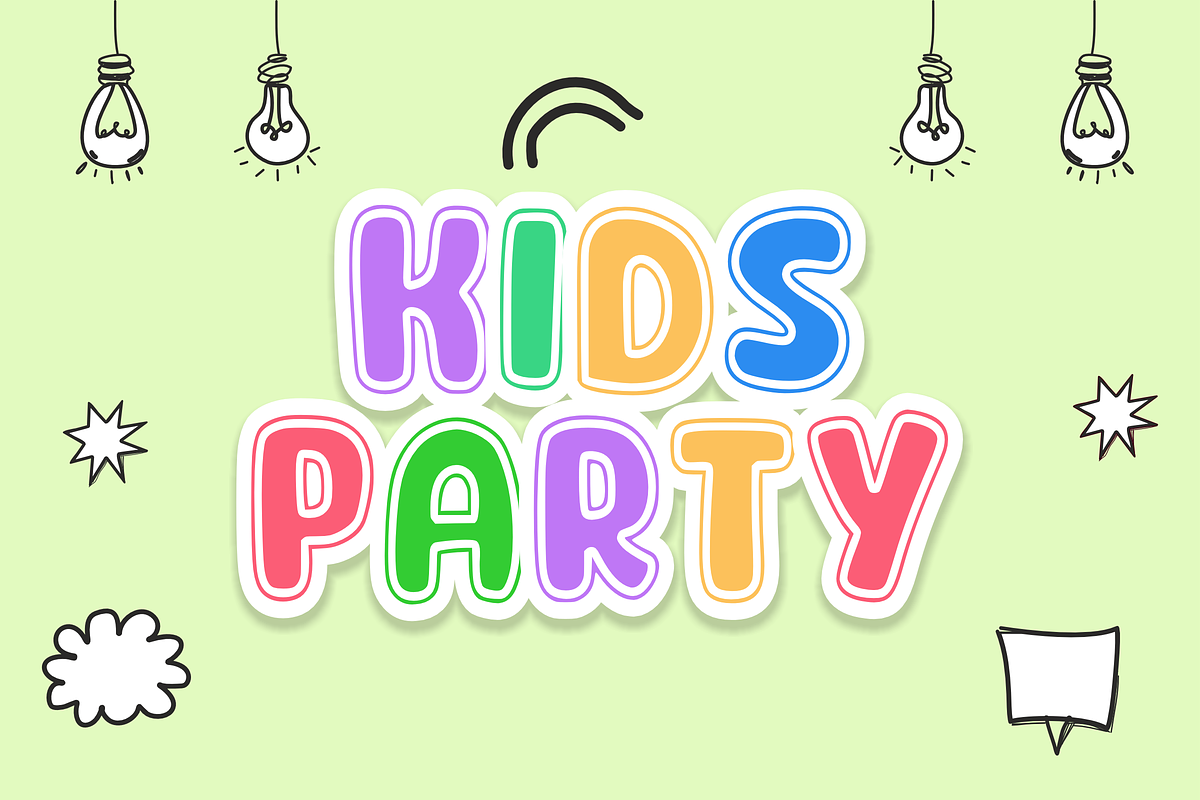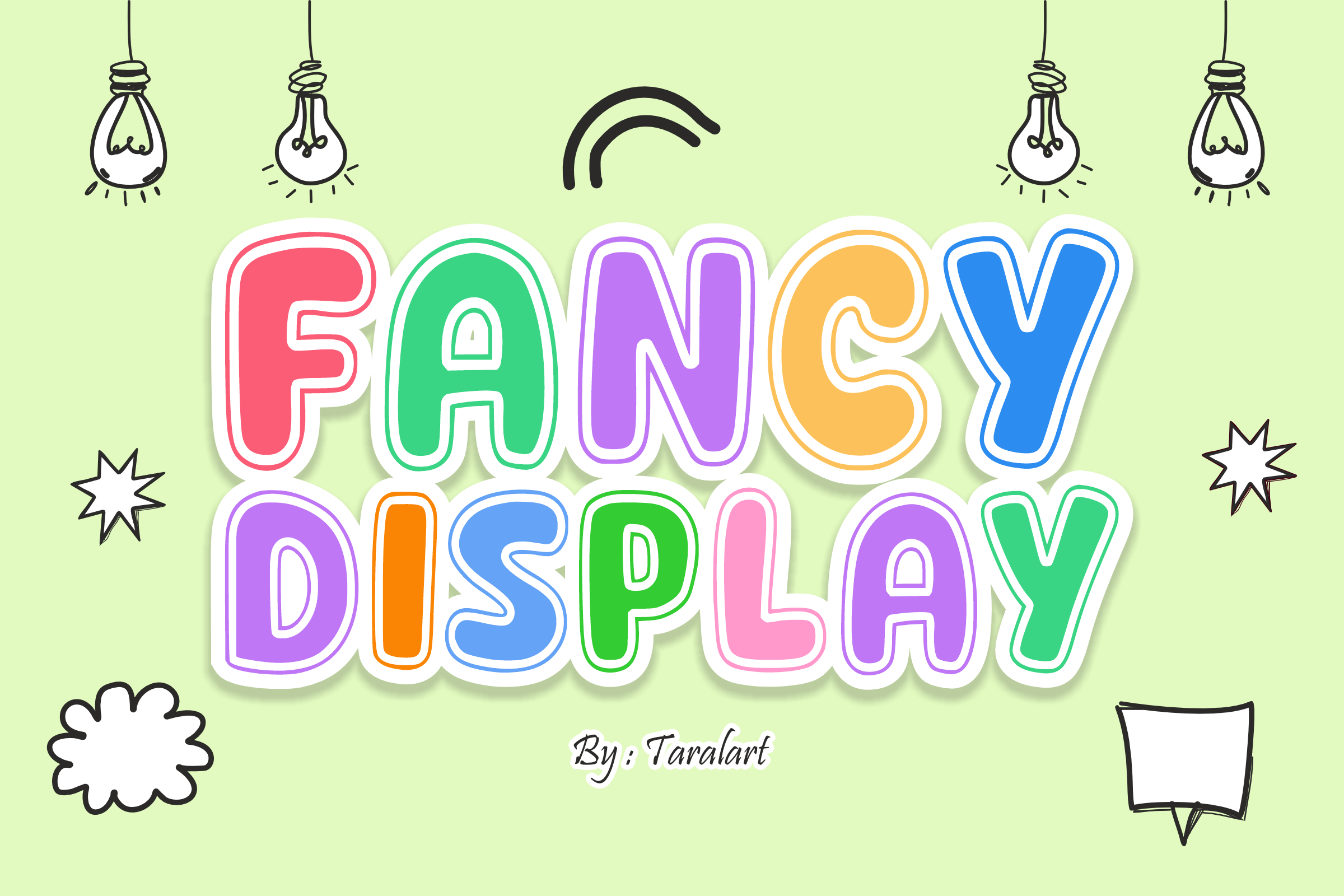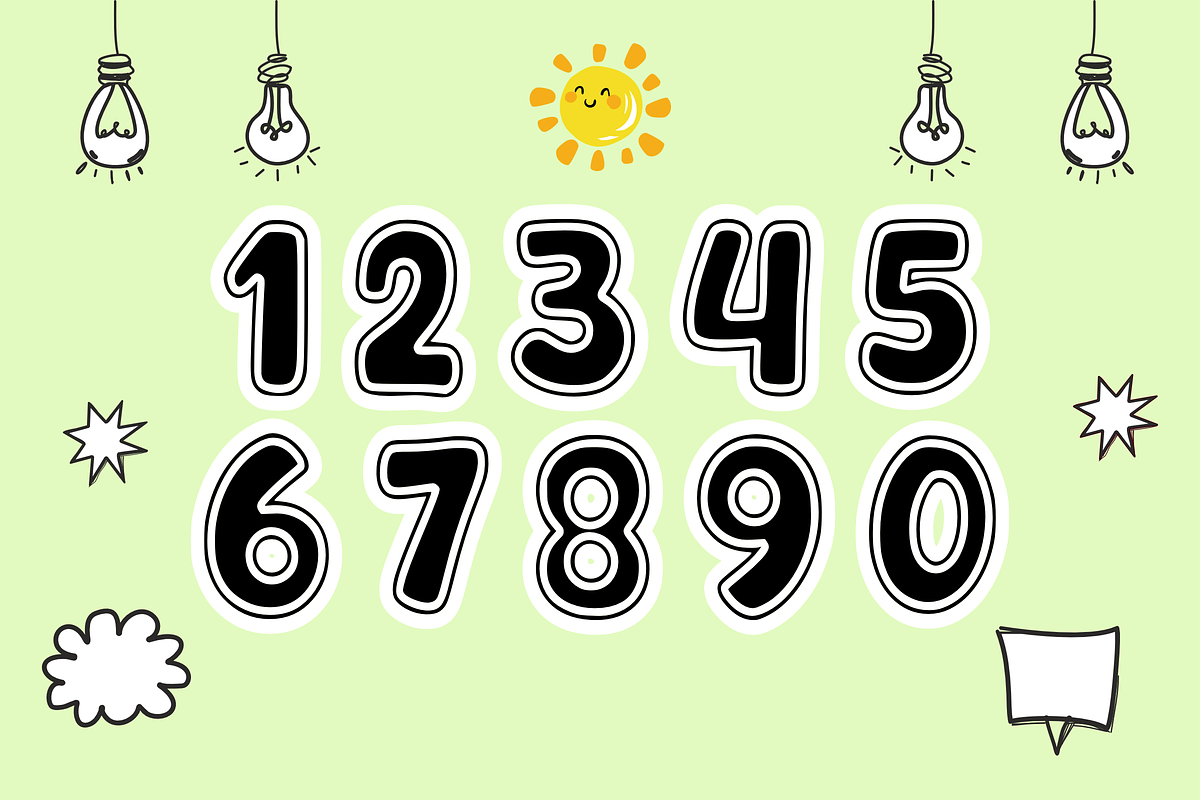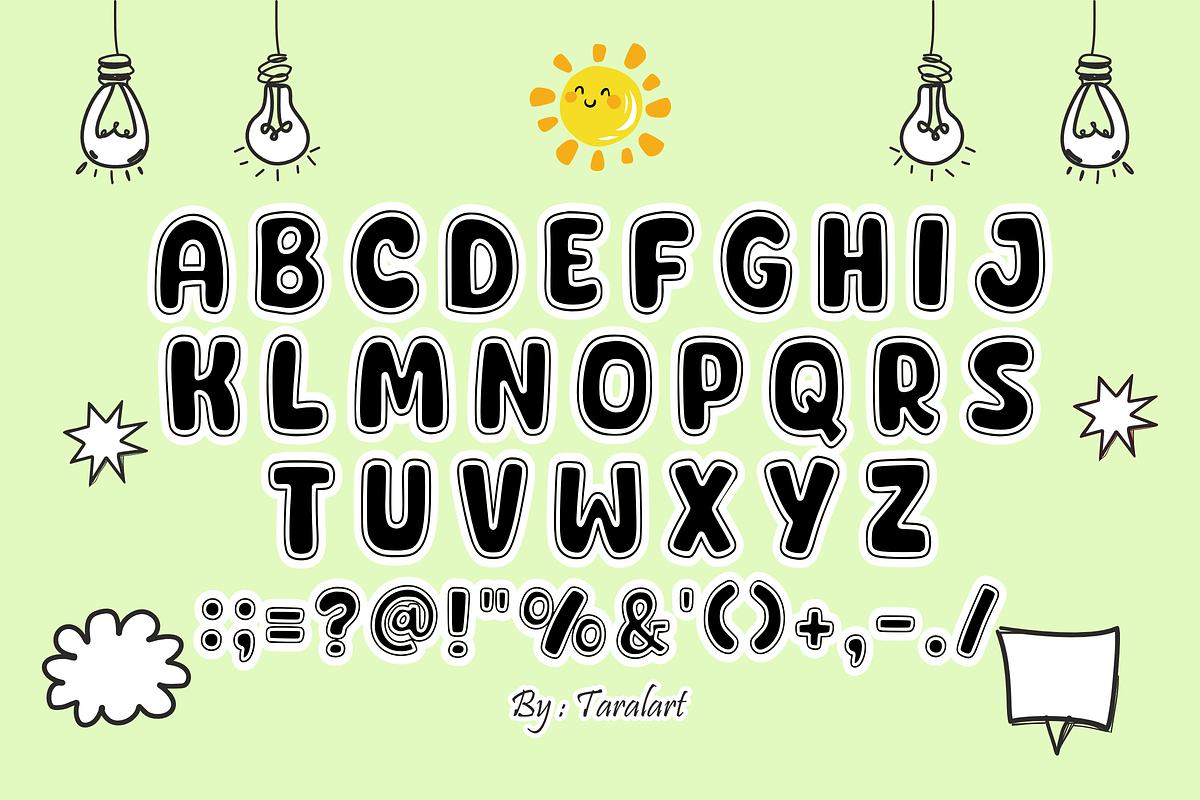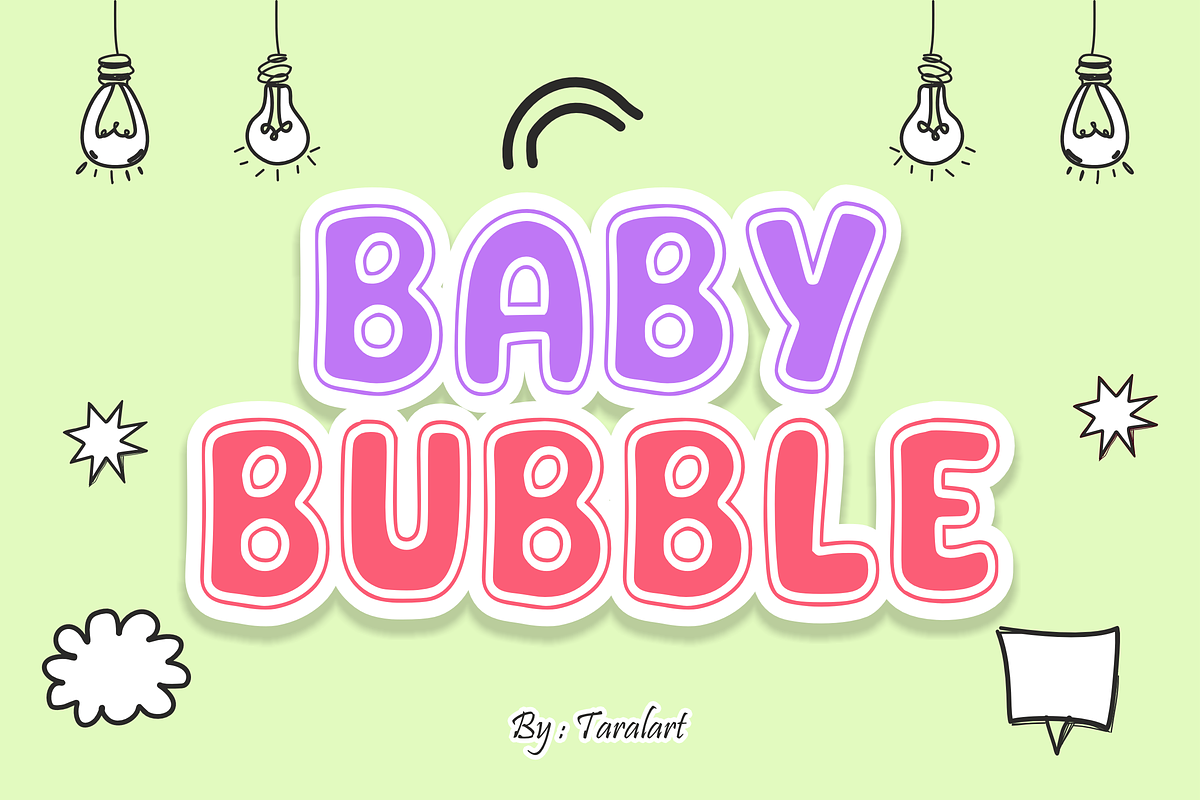
FANCY DISPLAY - Playful Cartoon Font
FANCY DISPLAY - Playful Inline Cartoon Font
Brighten up your creative designs with Fancy Display! This bold, bubbly typeface features chunky letterforms decorated with a clean inner inline highlight, giving every character a charming, glossy, and eye-catching pop. It’s the ultimate choice for making your titles, headlines, and logos look incredibly fun and full of personality.
Perfect for school materials, playful branding, and trend-focused crafting, Fancy Display masterfully pairs a lighthearted cartoon aesthetic with outstanding legibility. It is highly versatile, deeply expressive, and fully optimized for flawless performance across premium digital cutting tools and professional print workflows.
All-Caps Character Set (Chunky, inline uppercase letters)
Numbers & Basic Punctuation (Essential, simple symbols included)
Teacher Resources, Classroom Decor, & Educational Printables 🎒
Cricut, Silhouette, & DIY Kid-Friendly Craft Sublimation Projects ✂️
Children's Book Covers, Kindergarten Banners, & Fun Storybook Titles 📚
Kids' Product Packaging, Toy Labels, & Playful Merchandise 🎈
Custom Die-Cut Stickers, Social Media Graphics, & Cute Apparel Prints 👕